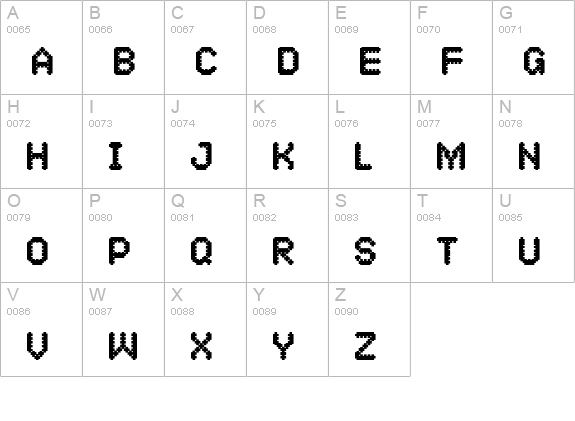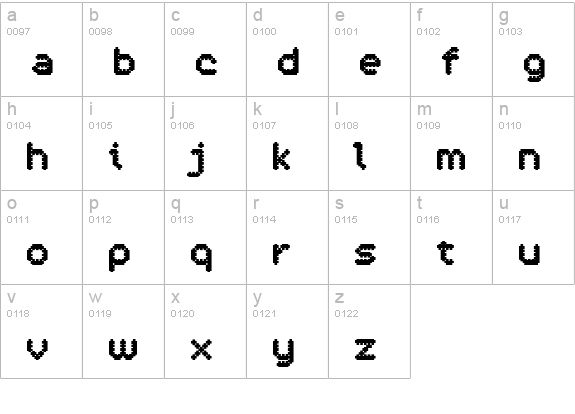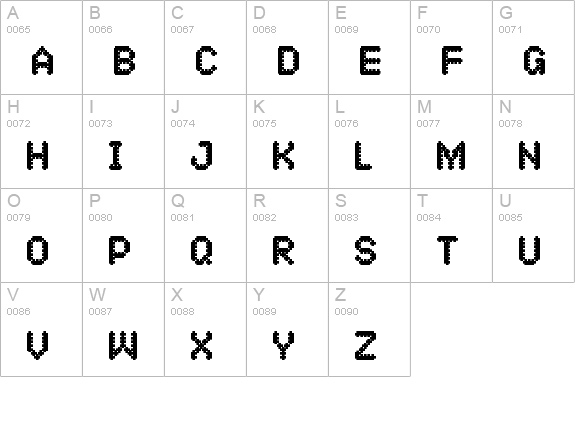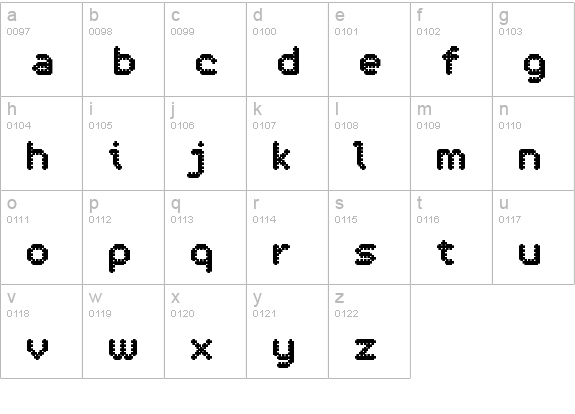
OneCross ExtraBold is an extra-heavy, attention-grabbing variant in the OneCross typeface family \xE2\x80\x94 well suited to high-impact headlines, posters, and bold branding.